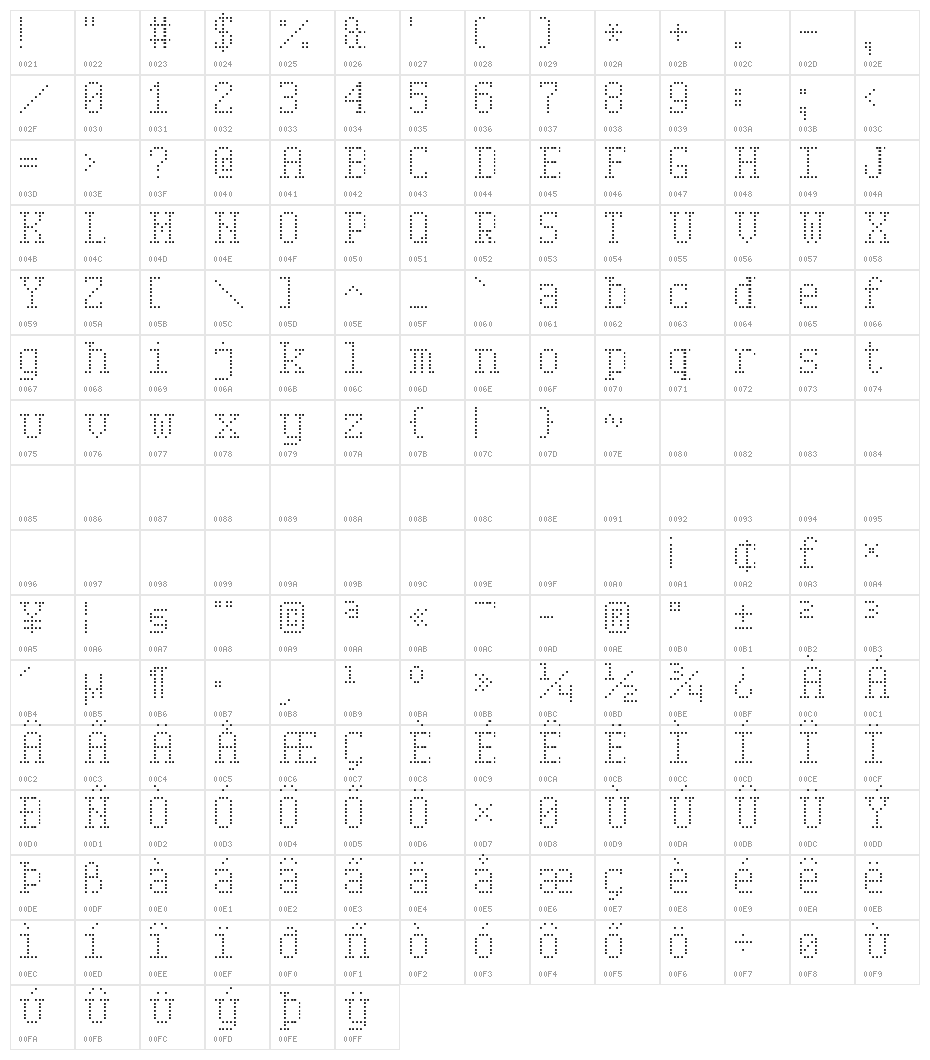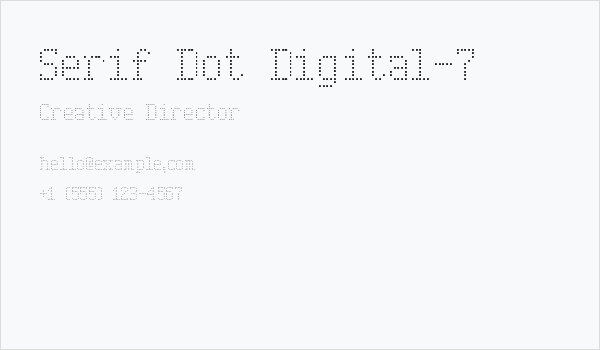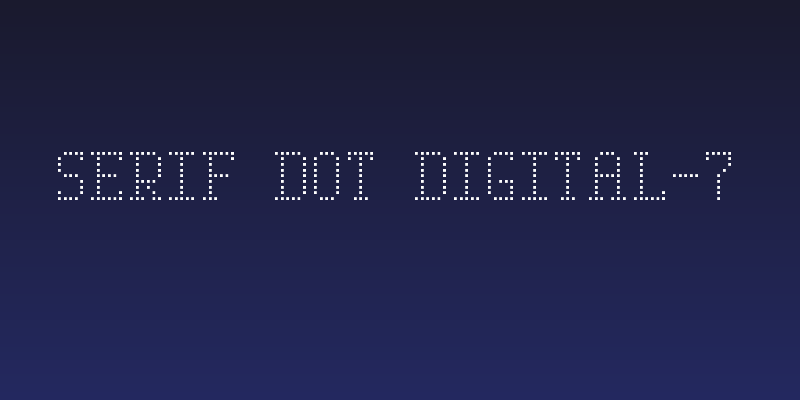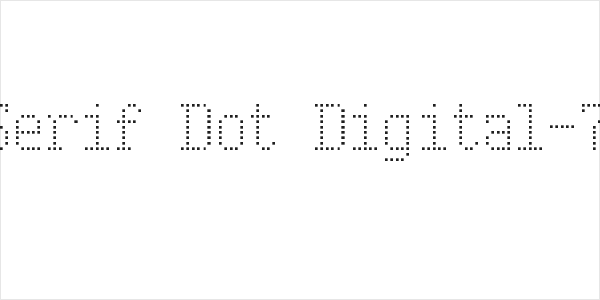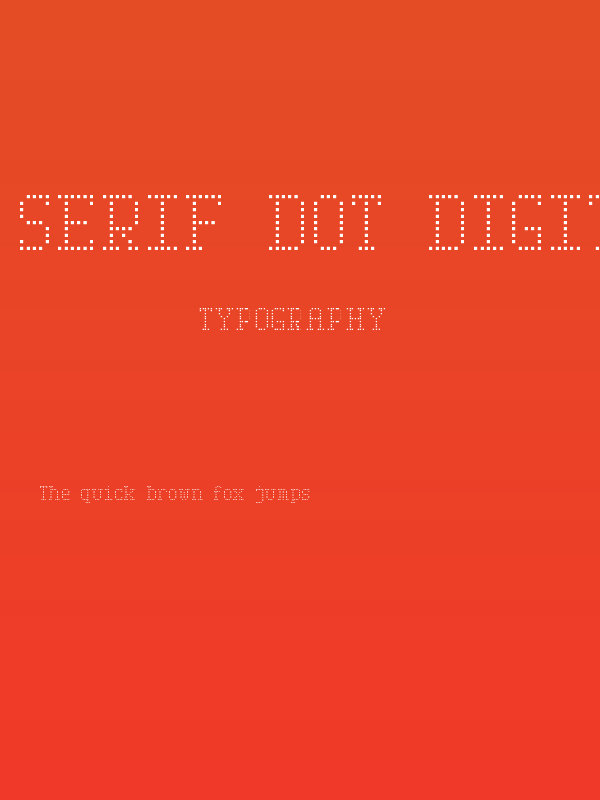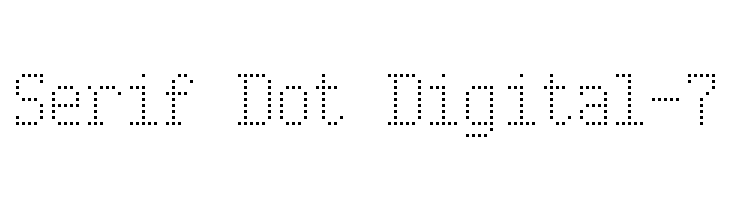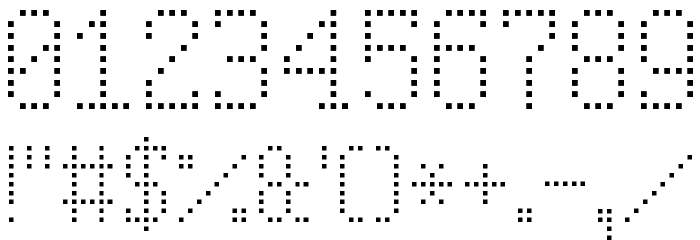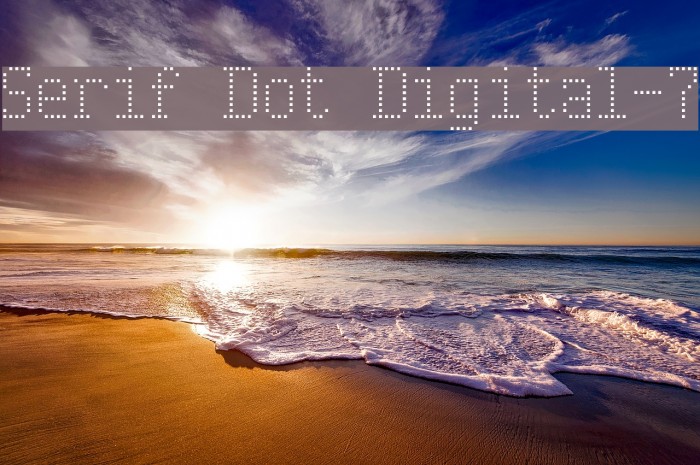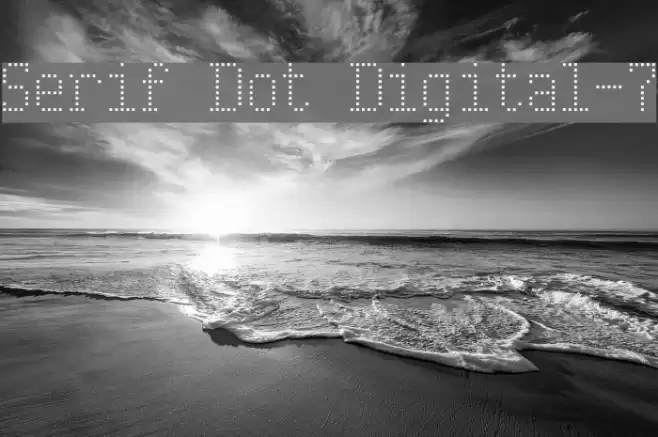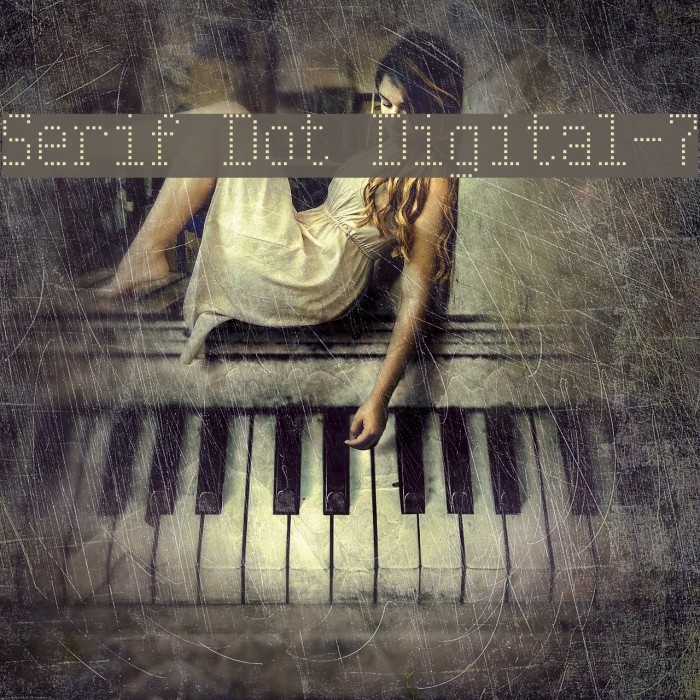
Serif Dot Digital-7 Font
This font features a unique dot matrix style, reminiscent of digital displays and old-school LED screens. Each character is composed of small, evenly spaced dots that form the shape of letters and numbers, giving it a distinct, retro-futuristic appearance. The uppercase and lowercase letters maintain a consistent height and width, ensuring uniformity across text. The numerals and special characters are designed with the same dot pattern, providing a cohesive look. This font is ideal for projects that aim to evoke a sense of nostalgia or digital aesthetics, such as tech-themed designs or retro-inspired graphics.
| Use Case | Headlines, Logos, Digital Displays |
| Proposed Projects | Ideal for digital displays, retro-themed designs, tech branding, and creative posters. |